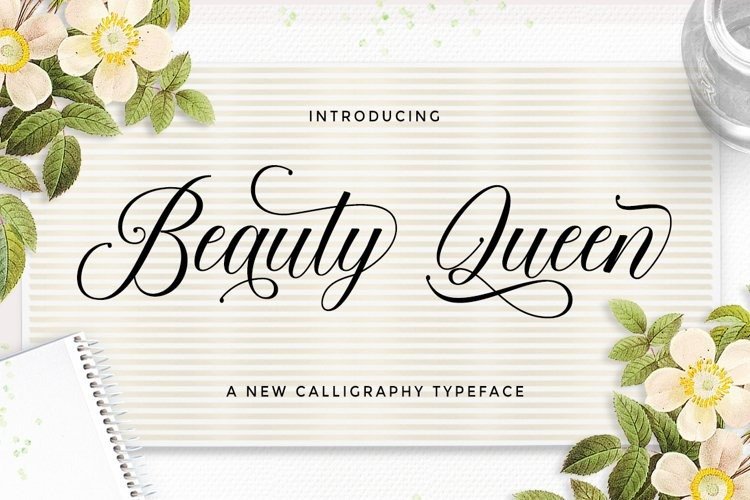
Beauty Queen Font
Introducing Beauty Queen Calligraphy Font. Beautiful and elegant script typeface with unique alternatives and italics. It comes with a handy set of opentype stylistic, use the beautiful ligatures, alternates and swashes.
You need a program that supports OpenType features such as Adobe Illustrator CS, Adobe Photoshop CC, Adobe Indesign, Microsoft Word 2010. It is perfect for logo, greetings, branding, quotes, prints, invitations and crafting. All lowercase letters include alternates, beginning & end swashes, that makes the font look fabulous!